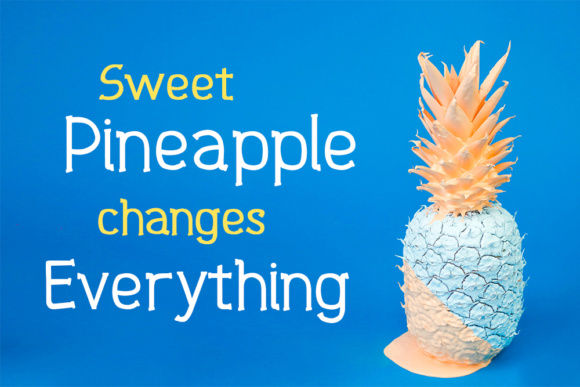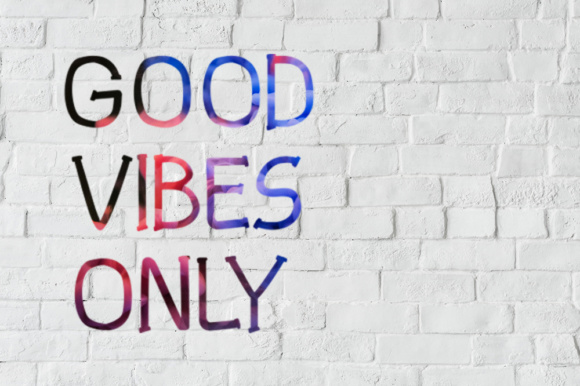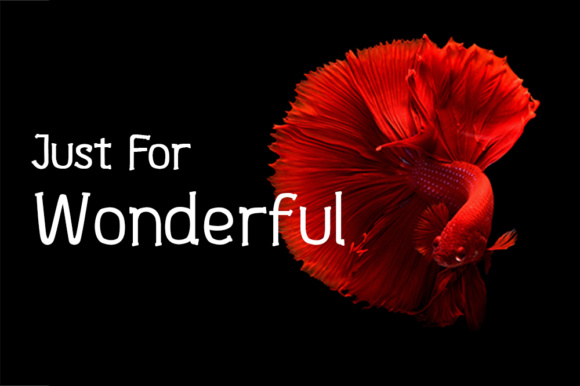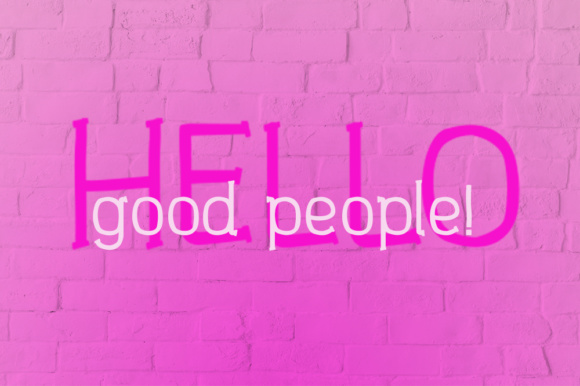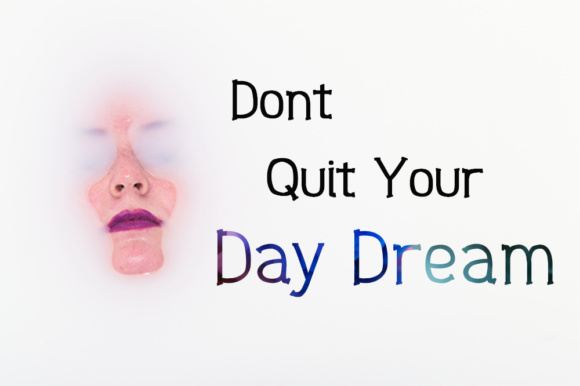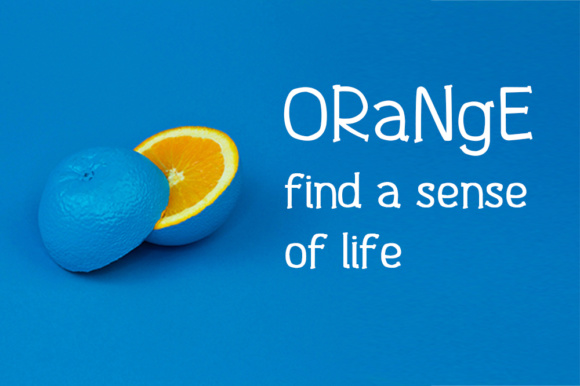
Introduction to Octopus Grid Font
Octopus Grid is made using a very unique and modern handwriting which makes it perfect for your amazing work.
Key Features of Octopus Grid Font
Why Choose Octopus Grid Font?
Octopus Grid Font offers exceptional quality and versatility, making it a valuable addition to your design toolkit. Whether you’re creating for personal projects or commercial use, Octopus Grid Font delivers professional results.